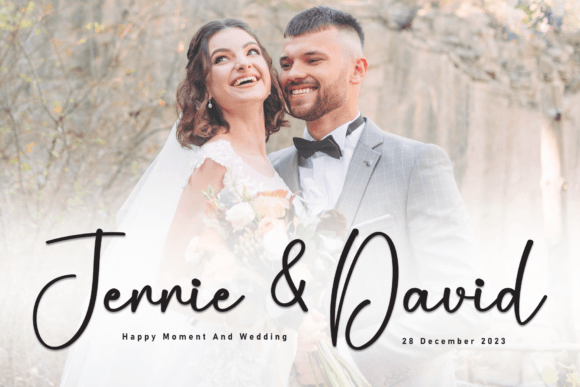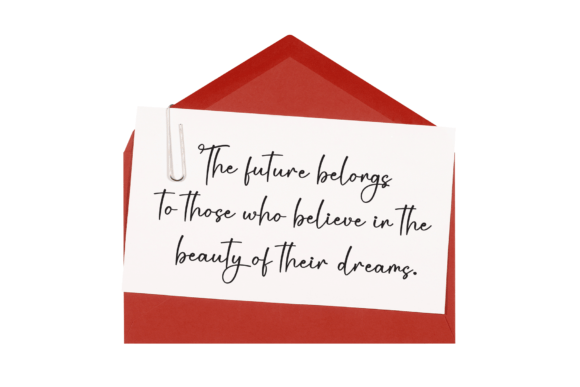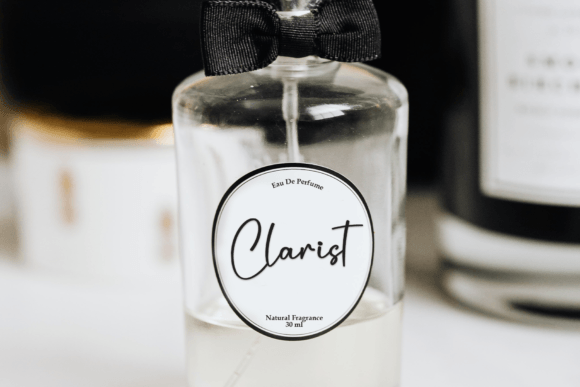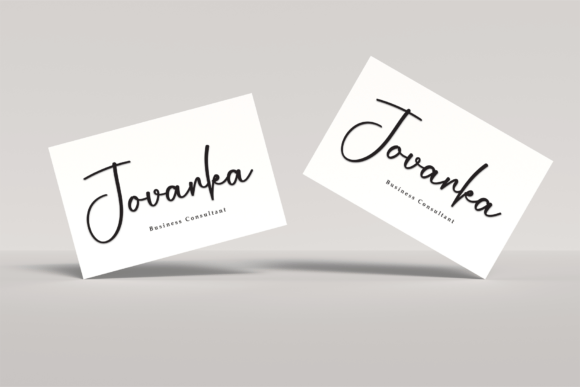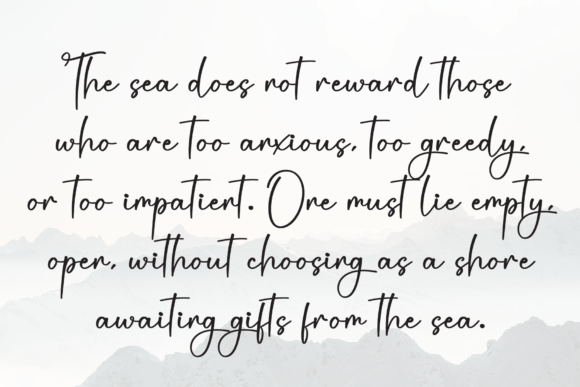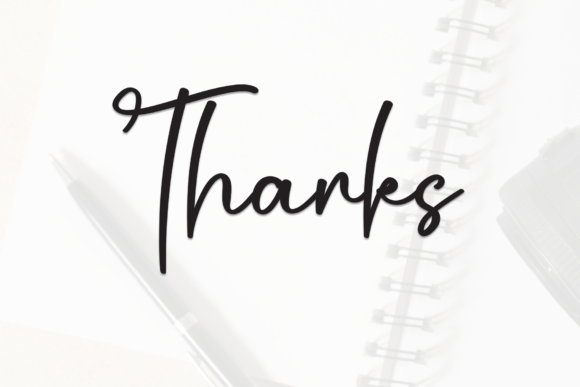
The Autography Font: A Sweet and Friendly Companion for Your Design Journey
I’ll never forget the moment I stumbled upon the Autography font. I was working on a project for a client who wanted a warm and inviting look for their branding. I had spent hours scouring through font libraries, but nothing seemed quite right. That was until I saw Autography – its natural, handwritten style immediately caught my eye. I knew right then and there that it was the perfect fit.
I’ve had the pleasure of working with Autography on several projects now, and I must say, it’s become a go-to font in my design arsenal. Here’s what I love about it:
- ✨ Sweet and Friendly Vibe: Autography exudes a warm, approachable feel that’s perfect for designs that need a personal touch.
- ✅ Versatility: Its unique style lends itself to a wide range of designs, from whimsical crafts to sophisticated branding.
- 🌈 Colorful Possibilities: Autography looks great in a variety of colors and can add a pop of personality to any design.
- 🤔 Legibility at Small Sizes: While Autography is beautiful at larger sizes, it can become a bit tricky to read at smaller sizes. Make sure to test it out at different scales to ensure it works for your project.
- ⚠️ Limited Formality: Due to its handwritten nature, Autography may not be the best fit for very formal or corporate designs. Keep this in mind when selecting fonts for projects that require a high level of professionalism.
- Take advantage of OpenType features, glyphs, and stylistic alternates to add more personality to your design.
The Story Behind Autography
While the true story behind Autography remains a mystery, it’s easy to imagine that it was created by a designer who wanted to capture the warmth and personality of handwritten text. Perhaps they were inspired by the beautiful lettering found in vintage advertisements or the imperfect, yet charming, quality of handwritten notes.
| Font Name | Autography Font |
| What makes Autography unique? | Autography’s unique blend of natural, handwritten style and friendly personality makes it stand out from other fonts. |
| Is Autography suitable for body text? | While Autography is beautiful as a display font, it may not be the best choice for body text due to its handwritten nature and potential legibility issues at small sizes. |